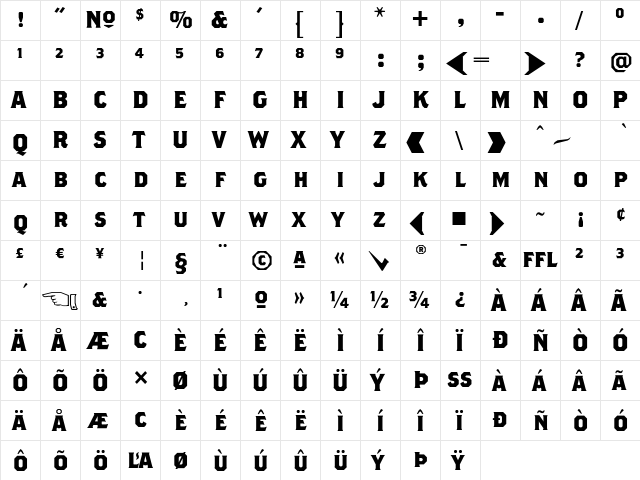
BrothersAlternates Bold Font Preview
BrothersAlternates Bold
Design Context for BrothersAlternates Typeface
BrothersAlternates takes a measured approach to typography — its balanced proportions and neutral character make it a reliable workhorse for both digital and print work. The heavy weight commands attention and anchors typographic hierarchies.